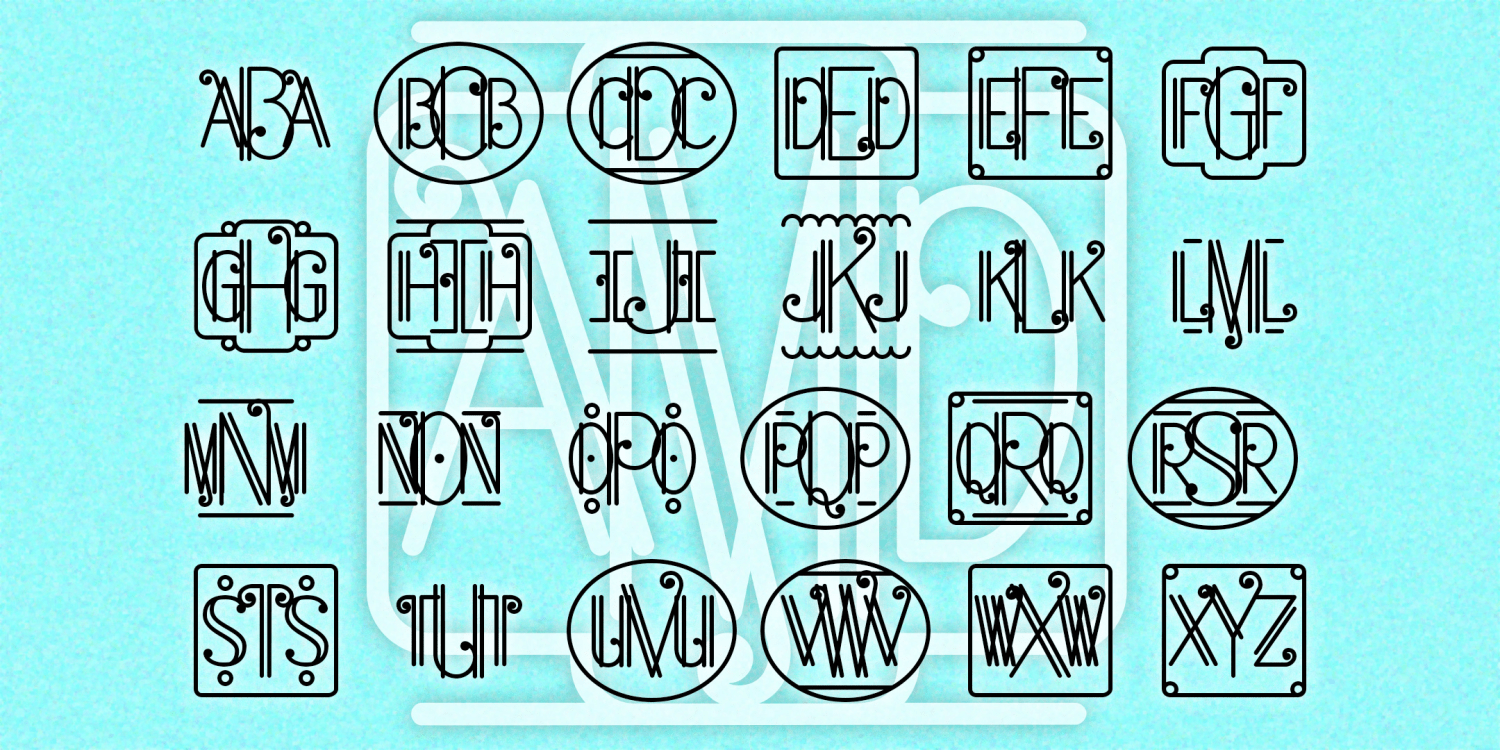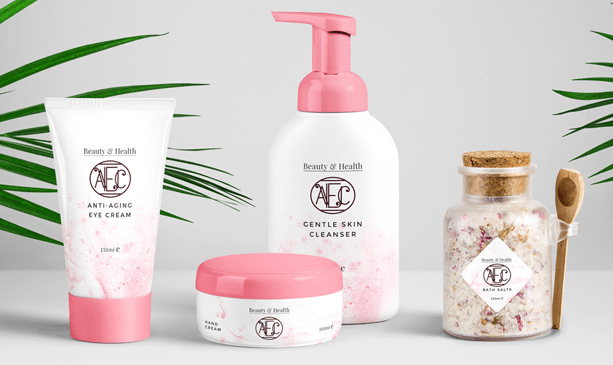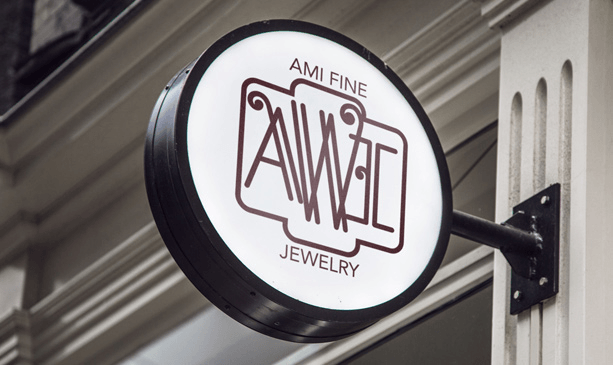
Art Deco Monograms
ART DECO MONOGRAMS combines elegant geometry, the intricacy of metalwork, and a touch of musical flair.
Create your own custom 3-letter monograms, with or without decorative frames. (If you prefer this style in a regular text font with upper and lowercase, please check out my True Confession font.)